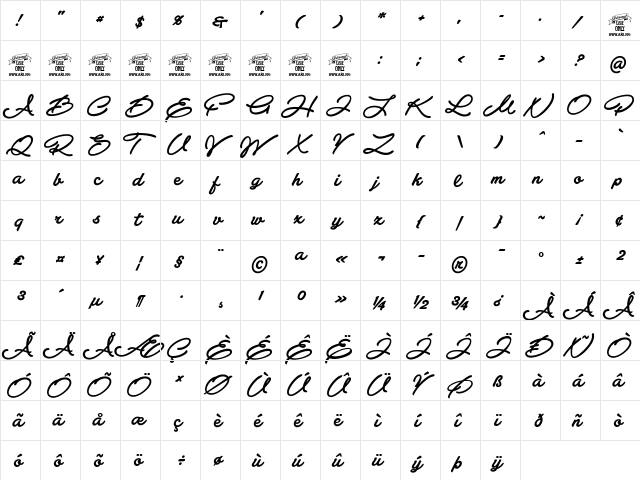
Atelas Personal Use Only Regular
Design Context for Atelas Personal Use Only Typeface
Atelas Personal Use Only is a composed and adaptable typeface that performs quietly and consistently across a wide range of design contexts.